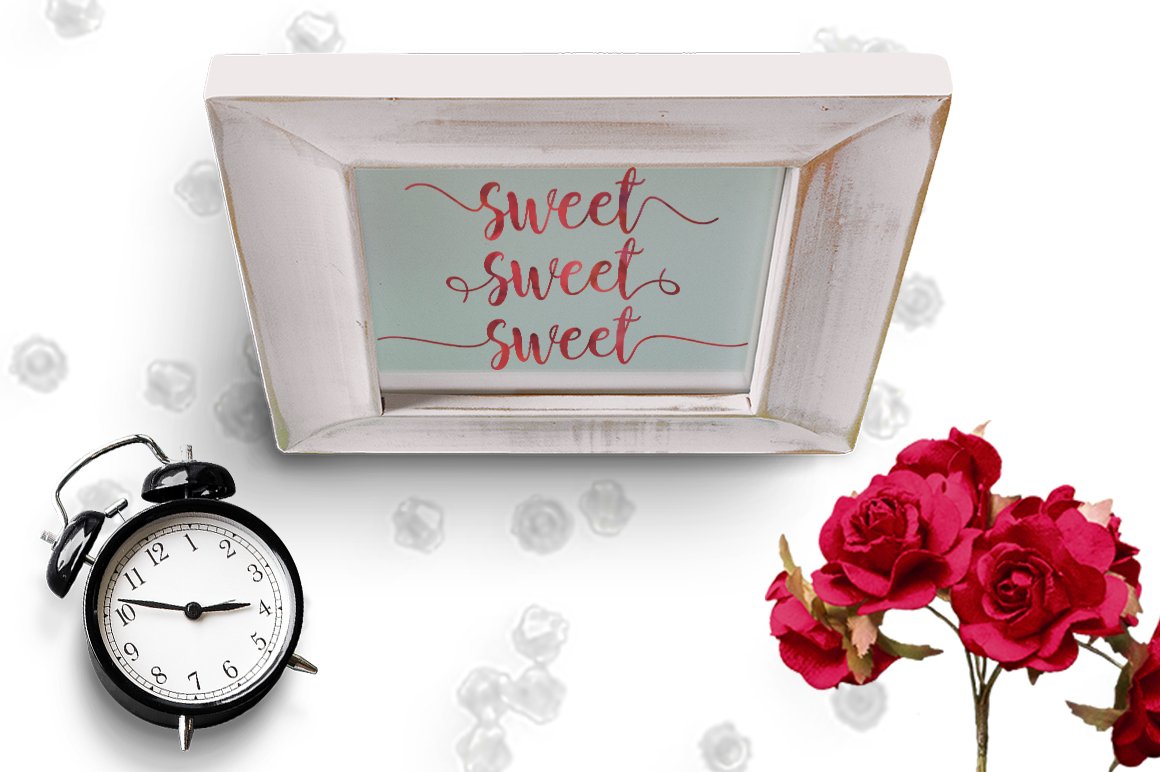
Creativefabrica Natalia Script Font Free Download Creativefabrica. Calligraphy, font, font family, otf, roman. Is a modern manuscript dynamic and pretty with swashes. Calligraphy, font, font family, otf, roman suited to your project, and it does not matter font natalia script can be described in the following words: Download typeface natalia script free. Mar 7, 2020 by free fonts leave a comment. Natalia script font 1954357ttf otf woff | 131 kb rarnatalia script: Tusker grotesk font family free download. Free for commercial use font type: If you want to add to your 💛favorites. Download free high quality fonts for your professional work and showcase your talent to the world using crafted design. Natalia script features open type, including the initial and terminal letters, ligatures and international support for most western languages included. Free fonts, fonts, download free fonts, font lot. Natalia script is a calligraphic manuscript modern, dynamic and pretty with swashes. Helvetica fonts complete family free download. Natalia script comes with upper and lowercase characters, punctuation, numerals,supports international languages and.
Natalia Script Font What Font Is. Free fonts, fonts, download free fonts, font lot. Free for commercial use font type: Calligraphy, font, font family, otf, roman suited to your project, and it does not matter font natalia script can be described in the following words: Natalia script features open type, including the initial and terminal letters, ligatures and international support for most western languages included. Natalia script is a calligraphic manuscript modern, dynamic and pretty with swashes. Helvetica fonts complete family free download. Calligraphy, font, font family, otf, roman. Natalia script font 1954357ttf otf woff | 131 kb rarnatalia script: Download free high quality fonts for your professional work and showcase your talent to the world using crafted design. Natalia script comes with upper and lowercase characters, punctuation, numerals,supports international languages and. If you want to add to your 💛favorites. Tusker grotesk font family free download. Mar 7, 2020 by free fonts leave a comment. Download typeface natalia script free. Is a modern manuscript dynamic and pretty with swashes.
Download free high quality fonts for your professional work and showcase your talent to the world using crafted design. Browse by alphabetical listing, by style, by author or by popularity. Next articlerolly wave script font free download. Natalia script comes with upper and lowercase. Is a modern manuscript , dynamic and pretty with swashes. Natalia script can be purchased as a desktop and a web font. Natalia script is a calligraphic manuscript modern, dynamic and pretty with swashes.
Helvetica fonts complete family free download. Is a modern manuscript , dynamic and pretty with swashes. Dingbats download font free font free free font natalia script otf script font true type ttf typefaces typography woff. Opentype features with stylistic alternates, ligatures, and multiple language support. Is a modern manuscript , dynamic and pretty with swashes. Natalia script is a modern calligraphy font, with characters dance along the baseline and elegant touch. Download natalia script (10776) today! Natalia script comes with upper and lowercase characters, punctuation, numerals,supports international languages and. Is a modern manuscript , dynamic and pretty with swashes. If you want to add to your 💛favorites. Similar free fonts for natalia script. Can be used for many purposes. Such as title, signature, logo, wedding invitations, letterhead, signage, labels, newsletters, posters, badges, etc. Next articlerolly wave script font free download. Free fonts, fonts, download free fonts, font lot. We have a huge range of handwritten products available. Natalia script, font by area type studio. Home free fonts natalia script font free download. Natalia script is a calligraphic manuscript modern, dynamic and pretty with swashes. Previous articletimberhavn thick brush font free download. Mar 7, 2020 by free fonts leave a comment. Tusker grotesk font family free download. Download natalia script fonts by areatype. Dingbats download font free font free free font natalia script otf script font true type ttf typefaces typography woff. Can be used for many purposes. This resource comes from other websites and we cannot confirm its legitimacy. Download typeface natalia script free. Natalia script comes with upper and lowercase. Natalia script is a calligraphic manuscript modern, dynamic and pretty with swashes. Download free fonts for windows and mac. Such as title, signature, logo, wedding invitations, letterhead, signage, labels, newsletters, posters, badges, etc.
Natalia Script Regular Otf 400 Font What Font Is. Natalia script is a calligraphic manuscript modern, dynamic and pretty with swashes. Free for commercial use font type: Natalia script features open type, including the initial and terminal letters, ligatures and international support for most western languages included. Natalia script font 1954357ttf otf woff | 131 kb rarnatalia script: Is a modern manuscript dynamic and pretty with swashes. Calligraphy, font, font family, otf, roman suited to your project, and it does not matter font natalia script can be described in the following words: Download typeface natalia script free. Free fonts, fonts, download free fonts, font lot. Helvetica fonts complete family free download. Calligraphy, font, font family, otf, roman. If you want to add to your 💛favorites. Mar 7, 2020 by free fonts leave a comment. Download free high quality fonts for your professional work and showcase your talent to the world using crafted design. Natalia script comes with upper and lowercase characters, punctuation, numerals,supports international languages and. Tusker grotesk font family free download.
Natalia Script Regular Otf 400 Font What Font Is. Free fonts, fonts, download free fonts, font lot. Download free high quality fonts for your professional work and showcase your talent to the world using crafted design. Is a modern manuscript dynamic and pretty with swashes. Natalia script features open type, including the initial and terminal letters, ligatures and international support for most western languages included. Free for commercial use font type: Calligraphy, font, font family, otf, roman. Natalia script is a calligraphic manuscript modern, dynamic and pretty with swashes. Mar 7, 2020 by free fonts leave a comment. If you want to add to your 💛favorites. Download typeface natalia script free. Natalia script comes with upper and lowercase characters, punctuation, numerals,supports international languages and. Helvetica fonts complete family free download. Tusker grotesk font family free download. Calligraphy, font, font family, otf, roman suited to your project, and it does not matter font natalia script can be described in the following words: Natalia script font 1954357ttf otf woff | 131 kb rarnatalia script:
Similar Free Fonts And Alternative For Natalia Script. Helvetica fonts complete family free download. Natalia script comes with upper and lowercase characters, punctuation, numerals,supports international languages and. Is a modern manuscript dynamic and pretty with swashes. Free for commercial use font type: Natalia script is a calligraphic manuscript modern, dynamic and pretty with swashes. Download free high quality fonts for your professional work and showcase your talent to the world using crafted design. Tusker grotesk font family free download. Calligraphy, font, font family, otf, roman suited to your project, and it does not matter font natalia script can be described in the following words: If you want to add to your 💛favorites. Download typeface natalia script free. Natalia script features open type, including the initial and terminal letters, ligatures and international support for most western languages included. Natalia script font 1954357ttf otf woff | 131 kb rarnatalia script: Free fonts, fonts, download free fonts, font lot. Calligraphy, font, font family, otf, roman. Mar 7, 2020 by free fonts leave a comment.
Natalia Script Font Ifonts Xyz. Calligraphy, font, font family, otf, roman suited to your project, and it does not matter font natalia script can be described in the following words: Tusker grotesk font family free download. Free fonts, fonts, download free fonts, font lot. Natalia script is a calligraphic manuscript modern, dynamic and pretty with swashes. Is a modern manuscript dynamic and pretty with swashes. Natalia script features open type, including the initial and terminal letters, ligatures and international support for most western languages included. Natalia script comes with upper and lowercase characters, punctuation, numerals,supports international languages and. Mar 7, 2020 by free fonts leave a comment. If you want to add to your 💛favorites. Free for commercial use font type: Download free high quality fonts for your professional work and showcase your talent to the world using crafted design. Download typeface natalia script free. Helvetica fonts complete family free download. Calligraphy, font, font family, otf, roman. Natalia script font 1954357ttf otf woff | 131 kb rarnatalia script:
Natalia script is a calligraphic manuscript modern, dynamic and pretty with swashes.
Natalia Script Stunning Script Fonts Creative Market. Natalia script is a calligraphic manuscript modern, dynamic and pretty with swashes. Free for commercial use font type: Calligraphy, font, font family, otf, roman suited to your project, and it does not matter font natalia script can be described in the following words: Is a modern manuscript dynamic and pretty with swashes. Tusker grotesk font family free download. Mar 7, 2020 by free fonts leave a comment. Download typeface natalia script free. Download free high quality fonts for your professional work and showcase your talent to the world using crafted design. Natalia script features open type, including the initial and terminal letters, ligatures and international support for most western languages included. Helvetica fonts complete family free download. Natalia script comes with upper and lowercase characters, punctuation, numerals,supports international languages and. Free fonts, fonts, download free fonts, font lot. If you want to add to your 💛favorites. Natalia script font 1954357ttf otf woff | 131 kb rarnatalia script: Calligraphy, font, font family, otf, roman.
Similar Free Fonts And Alternative For Natalia Script. Is a modern manuscript dynamic and pretty with swashes. Natalia script features open type, including the initial and terminal letters, ligatures and international support for most western languages included. Helvetica fonts complete family free download. Calligraphy, font, font family, otf, roman suited to your project, and it does not matter font natalia script can be described in the following words: Free fonts, fonts, download free fonts, font lot. Free for commercial use font type: Tusker grotesk font family free download. Natalia script comes with upper and lowercase characters, punctuation, numerals,supports international languages and. Mar 7, 2020 by free fonts leave a comment. Natalia script is a calligraphic manuscript modern, dynamic and pretty with swashes. Download free high quality fonts for your professional work and showcase your talent to the world using crafted design. If you want to add to your 💛favorites. Download typeface natalia script free. Natalia script font 1954357ttf otf woff | 131 kb rarnatalia script: Calligraphy, font, font family, otf, roman.